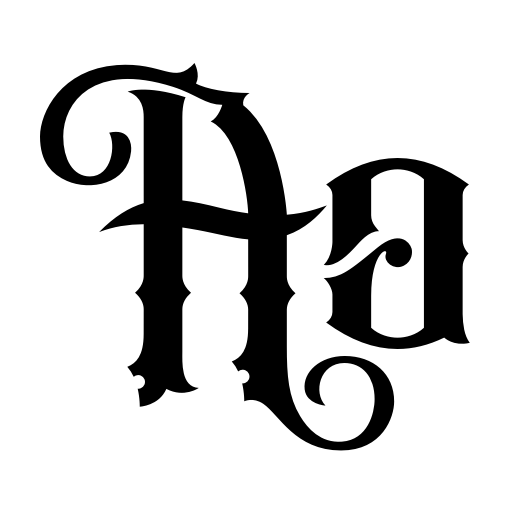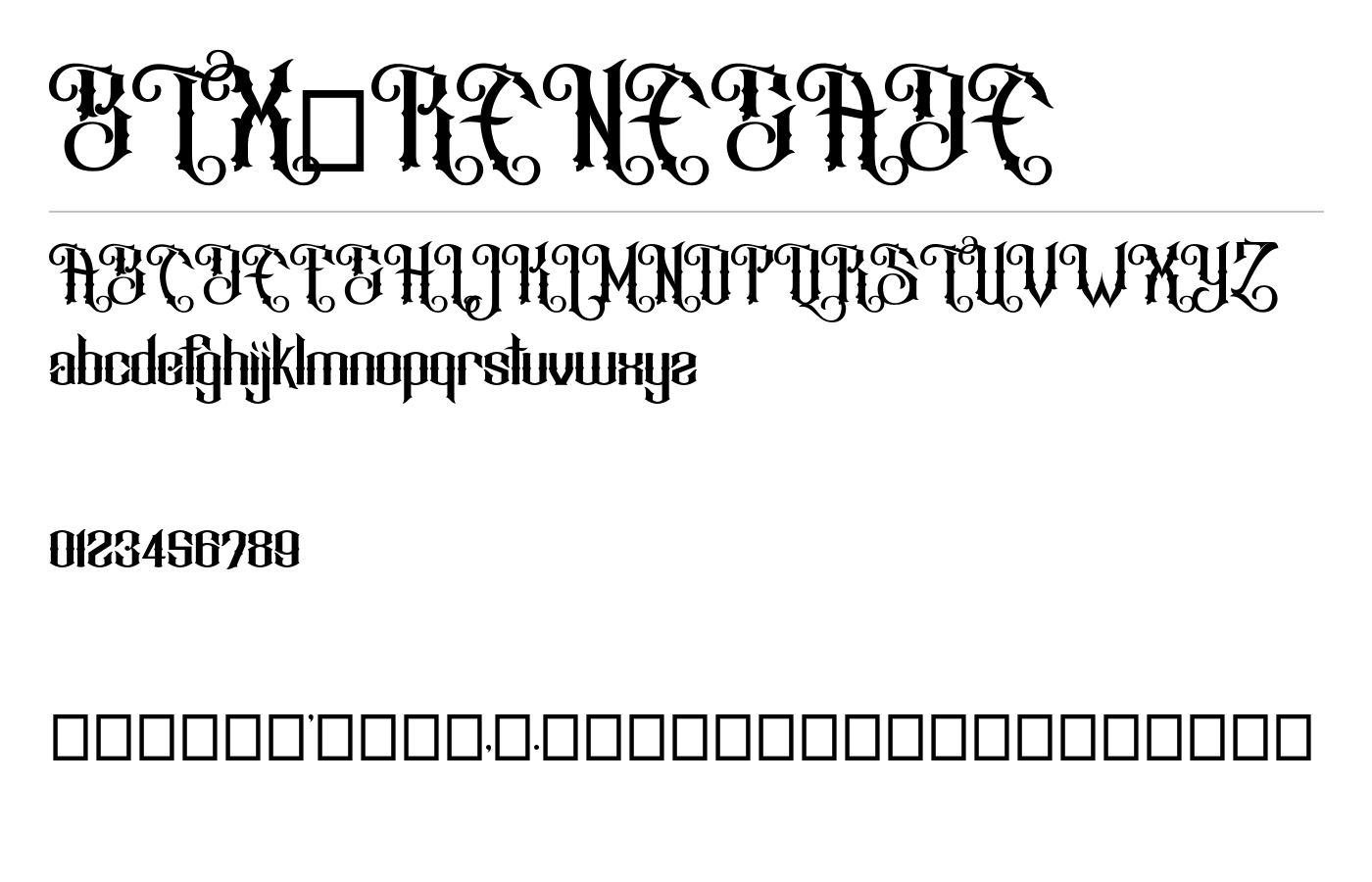
BTX-RENEGADE is a bold, decorative serif font with intricate, gothic-inspired flourishes that give it a dark, vintage feel. Its high contrast strokes and elaborate details make it ideal for headlines, logos, and designs seeking a dramatic, rebellious edge. This font works best in contexts like tattoo art, music branding, or any visual that calls for a striking, old-world elegance with a modern twist.
BTX-RENEGADE Font